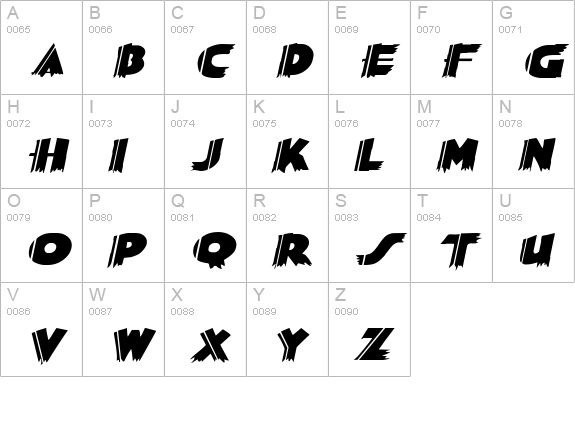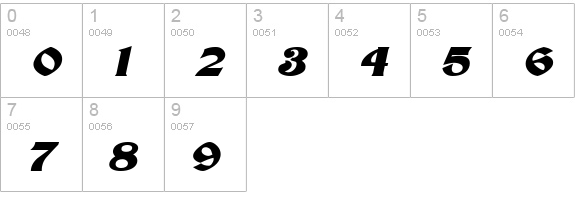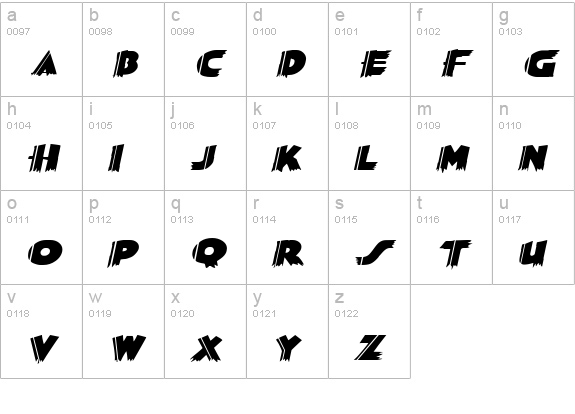
PosterExtended Italic Font Details
PosterExtended Italic is a distinctive, italic variant in the PosterExtended typeface family \xE2\x80\x94 well suited to design and typography projects.
PosterExtended Italic font is a bold and eye-catching typeface designed to make a statement in any design project. Its slanted and elongated characters exude a sense of modernity and sophistication, perfect for conveying a sense of drama and flair. This font is ideal for creating posters, headlines, logos, and any other design that requires a touch of elegance and impact. The italicized style adds a dynamic and stylish element to your text, making it stand out and grab attention. Best of all, PosterExtended Italic font is available for free download at FontsMarket.com. This means you can easily access this stunning typeface and use it in your projects without any cost. Don't miss out on the opportunity to add this versatile and striking font to your design toolkit. Download PosterExtended Italic font today and elevate your designs to new heights.